Talk to enough type designers and you’ll quickly realize something: there’s a story behind every letterform. That’s because, as much as we try to make sense of the science of typography, it is also very much an art. A practice inevitably infused with the unique little quirks that make us human.
The typefaces you download and use every day capture their creators’ points of view, condense multiple inspiration sources, and are fine-tuned to express specific sentiments. There’s a lot that goes into digital typography and we’re on a mission to reveal the creative process behind some of the most popular font families on Creative Market. This time around, we talked to Connary Fagen – the talented designer behind Quincy.
1. What inspired you to design Quincy? Where does your creative process usually start?
Quincy was the first serif typeface that my foundry released, so naturally the goal was to try my hand at an original serif design. I was inspired by the flowing movement of the typography treatments of 1970 and 1980s movie posters, book covers, and signage, but I wanted to rein in some of the extravagance for a cuter, more modern character. I wanted to capture a mental image I had of golden, undulating warmth, like a stream running through a forest at sunset.
2. Why did you name it Quincy?
I liked starting off with a capital ´Q’ so I could showcase that letter. I liked the name, too — it sounds nice and has positive connotations in my mind. The name feels warm, smart, and approachable.
3. What’s your favorite feature in this font that may not be readily apparent?
There are many soft, rounded corners and edges in Quincy. They aren’t loudly pronounced, and may only appear when the font is used as a display typeface in a large composition.
4. How has your style evolved since you first started your craft? Would you say you’re headed in any certain direction?
I’m always learning, which is hopefully coupled with growth and evolution. Specifically, I’ve allowed myself to occasionally move away from typeface designs that I think will have broad appeal, spending more time exploring unique, niche concepts. One recent example is Olivette CF, which has a very extreme stroke contrast, with elements of calligraphy. I also revisit older typeface designs of mine and refine them, bringing them up to the quality that I’ve come to expect of myself after 5 years in the industry.
5. Many claim that finding the perfect font feels like falling in love. Describe a brand that would be a great match for Quincy in three words.
Warm. Bright. Honest.
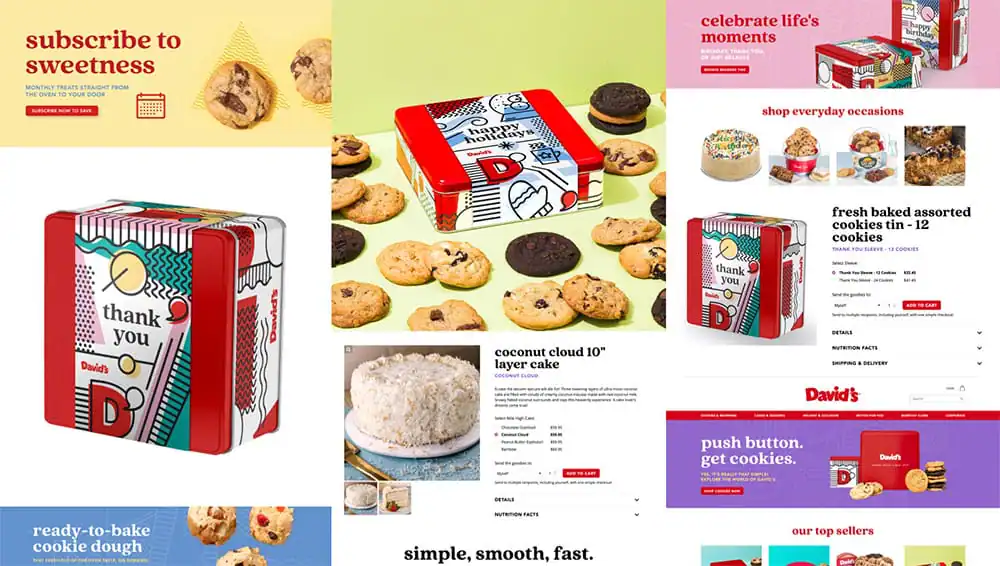
Quincy used by David’s Cookies via connary.com
6. How would you define your typographic design style?
I come from a background in traditional, client-focused graphic design work. Since I started designing type, I’ve always said that I make typefaces that I would use in my own graphic design work. That helps guide my style, in the sense that I aim to create usable, useful typefaces (even the niche ones). I find myself gravitating to clean, sensible designs with strong, consistent structures, even when evoking a humanist warmth with faces like Artifex Hand, which evokes a sense of natural calmness when I look at it.
7. What advice do you have for aspiring typographers looking to build a brand? Any specific resources or tools?
Glyphs, a Mac type design tool, is an excellent piece of software. Don’t be afraid; learn how to use it and other advanced tools effectively. Be sure to test your fonts extensively in apps like Adobe Illustrator. Stress-test your work. Try using your fonts in designs and see if any quirks appear.
As for building a brand, find your specialty and dive deep into it. Don’t try to be everything for everyone. Play to your strengths, but don’t become stagnant. Be humble and keep learning. Let people try out your fonts and be available to your customers if they have questions or concerns.